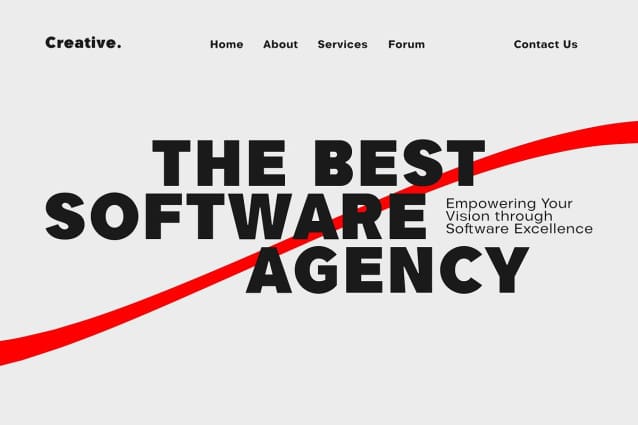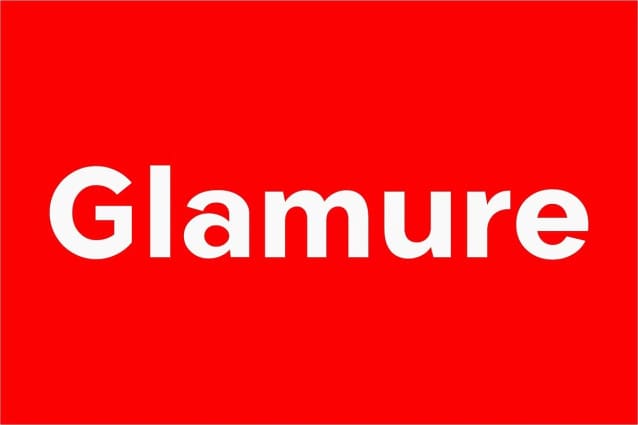
Glamure Font Family
Glamure Font was inspired by the Myriad font which has been frequently used by technology companies and governments since the 1990s. Glamure is a clean, sleek and versatile font, by applying geomattric shapes to create a fantastic, modern and humanistic font. Glamure can function as a title, logo, body copy, subtitle, headline and so on.